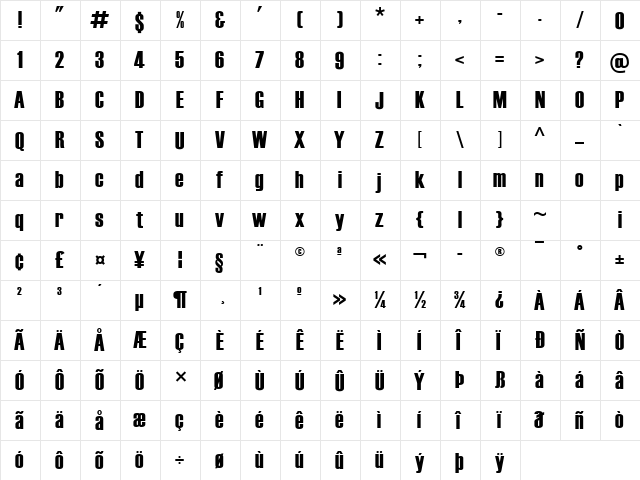
Haettenschweiler Regular
Design Context for Haettenschweiler Typeface
Haettenschweiler is a composed and adaptable typeface that performs quietly and consistently across a wide range of design contexts.
Pro Tip: Use Haettenschweiler in both headline and body roles to test its range before committing to a single application.